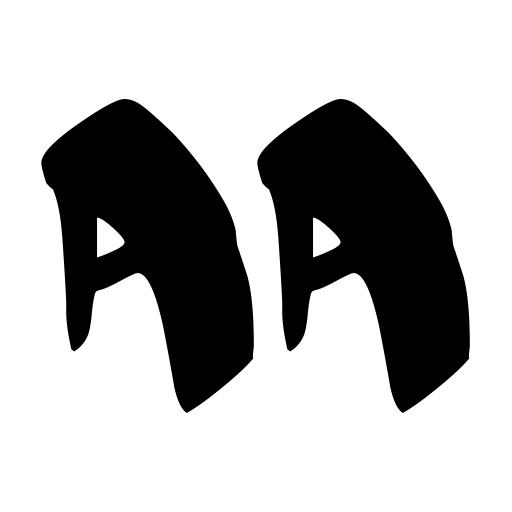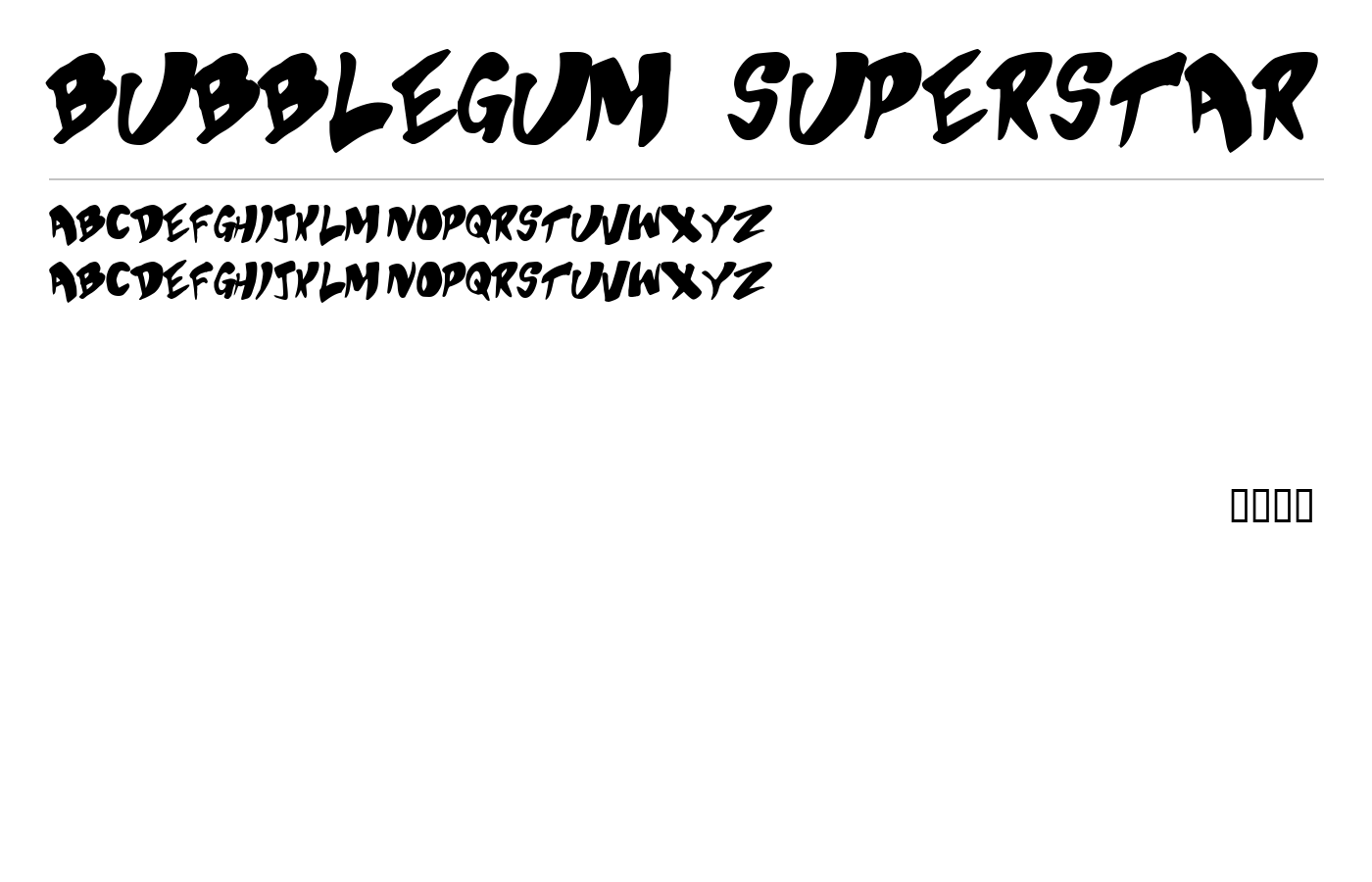
Bubblegum Superstar is a bold, expressive handwritten font that captures a fun and energetic vibe with its thick, uneven strokes and playful letter shapes. Its casual, slightly rough texture makes it perfect for youth-oriented designs, creative headlines, and eye-catching branding that needs a touch of personality and cheerfulness. This font works great for posters, logos, and packaging where a dynamic and informal look is desired.
Bubblegum Superstar Font